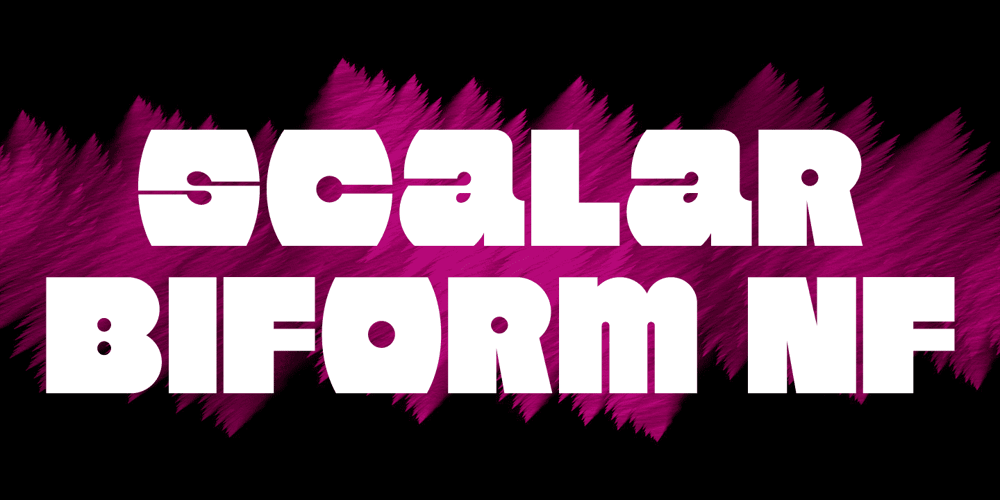
Scalar Biform NF Font Family was designed by Nick Curtis and published by Nick’s Fonts. Scalar Biform NF contains 1 styles and family package options. Here’s a trip back to the Disco Age, based on a font called Gemini Biform from Fotostar. Big, bold, brassy and sassy. Both versions support the Latin 1252, Central European 1250, Turkish 1254 and Baltic 1257 codepages.